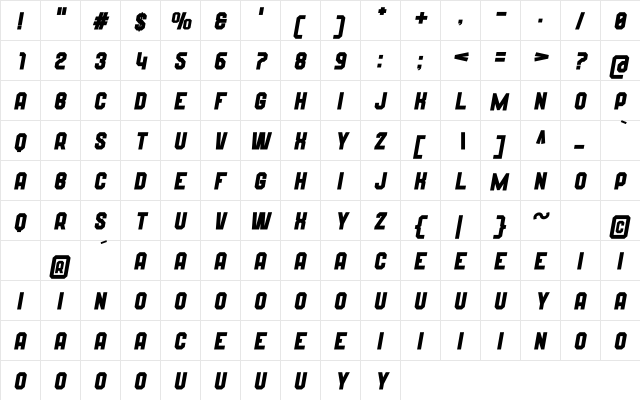
Wynford Solid Italic Font Preview
Wynford Solid Italic
Wynford Solid Italic Font Details
Design Context for Wynford Solid Typeface
Wynford Solid takes a measured approach to typography — its balanced proportions and neutral character make it a reliable workhorse for both digital and print work. The slanted form adds forward momentum and visual energy.
Pro Tip: Try Wynford Solid for annotation and caption copy alongside an upright companion — the contrast in angle creates a dynamic but ordered typographic system.